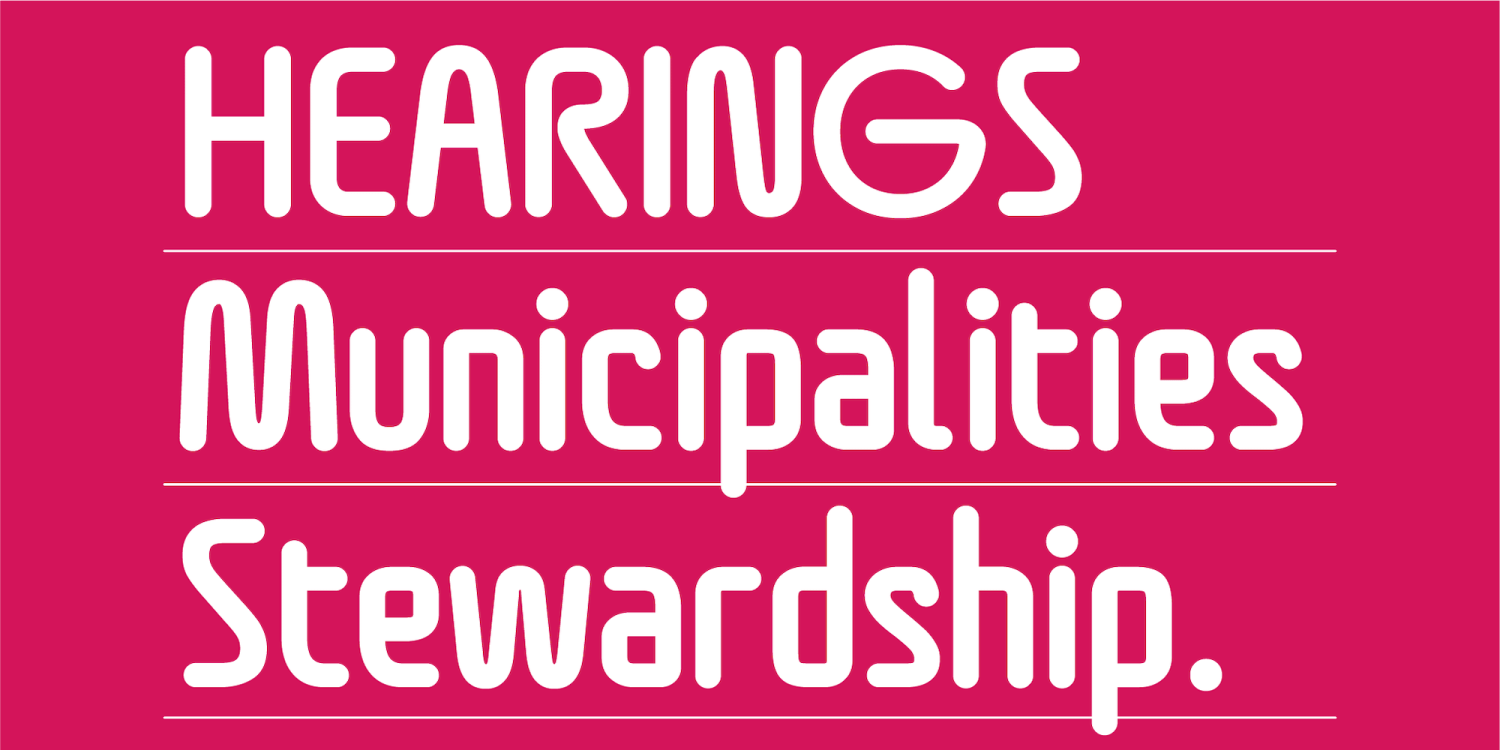
Bingola
Font Family by AF Studio
Bingola is a fun and creative display font designed by Adam Fathony, featuring soft, rounded edges and a unique combination of wavy uppercase and squared lowercase characters. With its friendly and modern look, Bingola is perfect for eye-catching headlines, branding, packaging, and playful designs.
Features:
• Three Weights: Regular, Medium, and Bold
• Smooth & Rounded: Soft curves for a welcoming feel
• Unique Letterforms: Wavy uppercase and squared lowercase for a distinctive style
• Versatile Use: Ideal for logos, posters, children’s books, and more
Bingola’s bold and dynamic personality makes it an excellent choice for creative projects that need a touch of fun and originality. Whether you're designing a playful brand identity or a vibrant advertisement, this font ensures your message stands out with charm and energy!